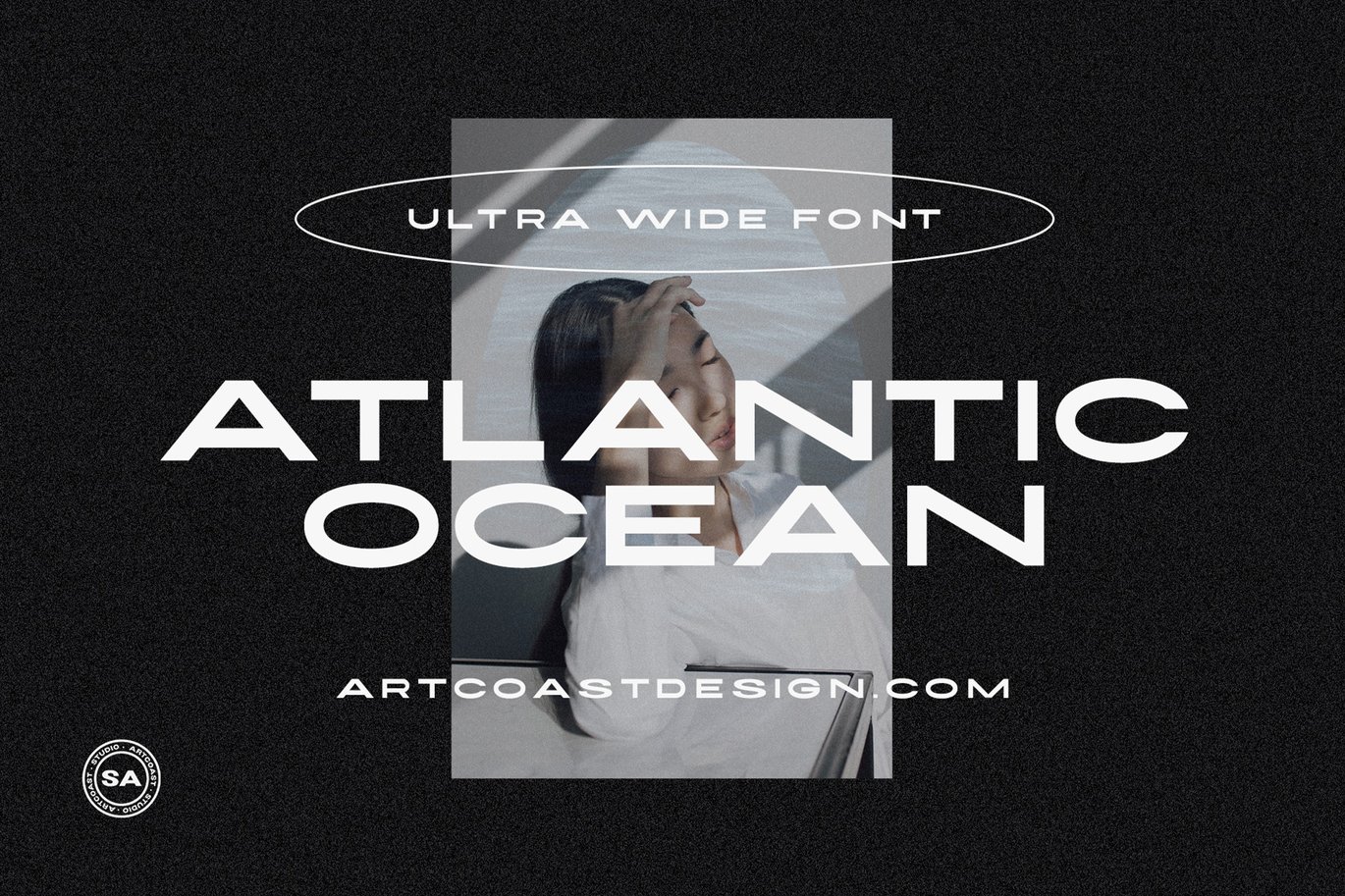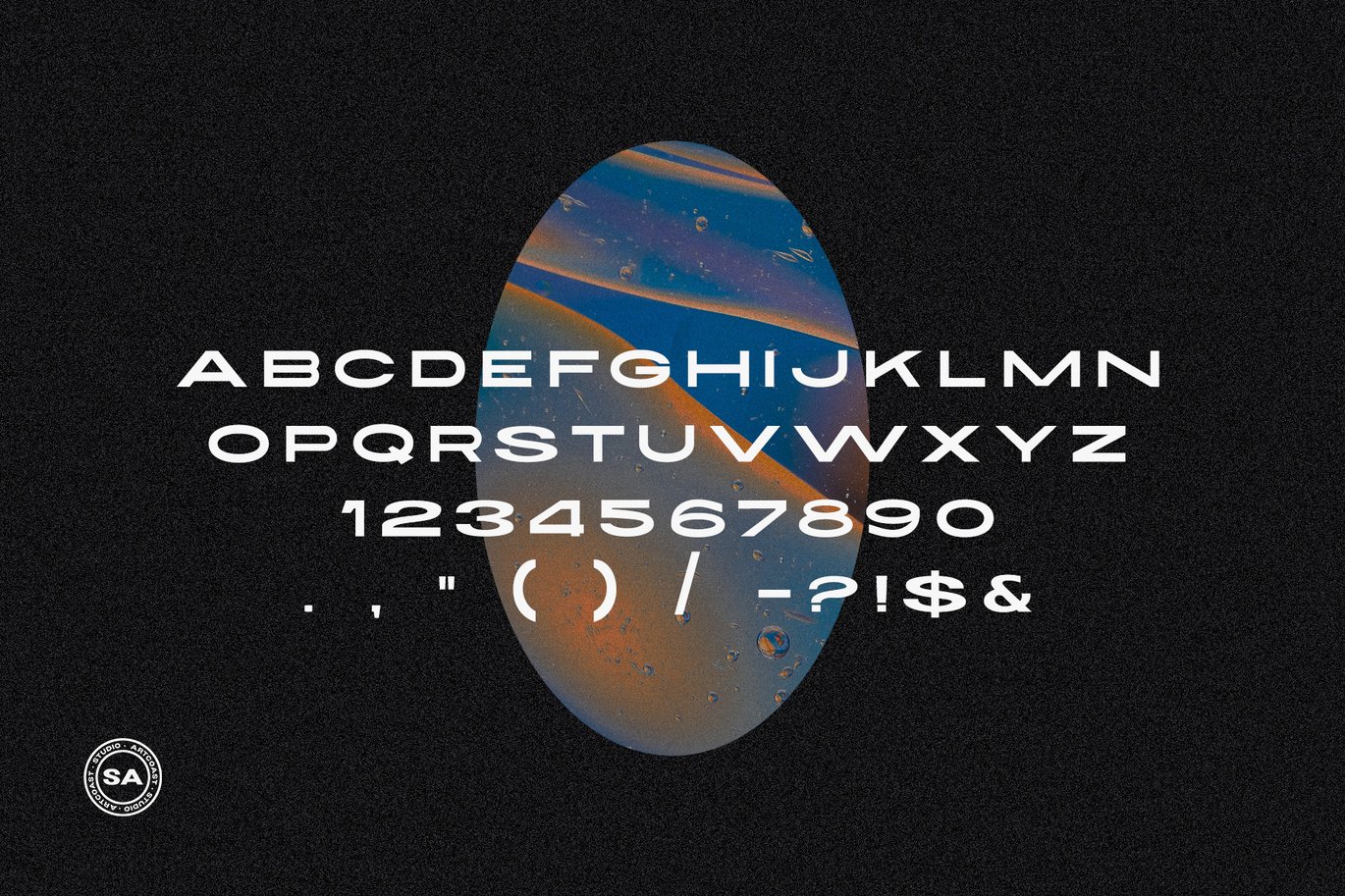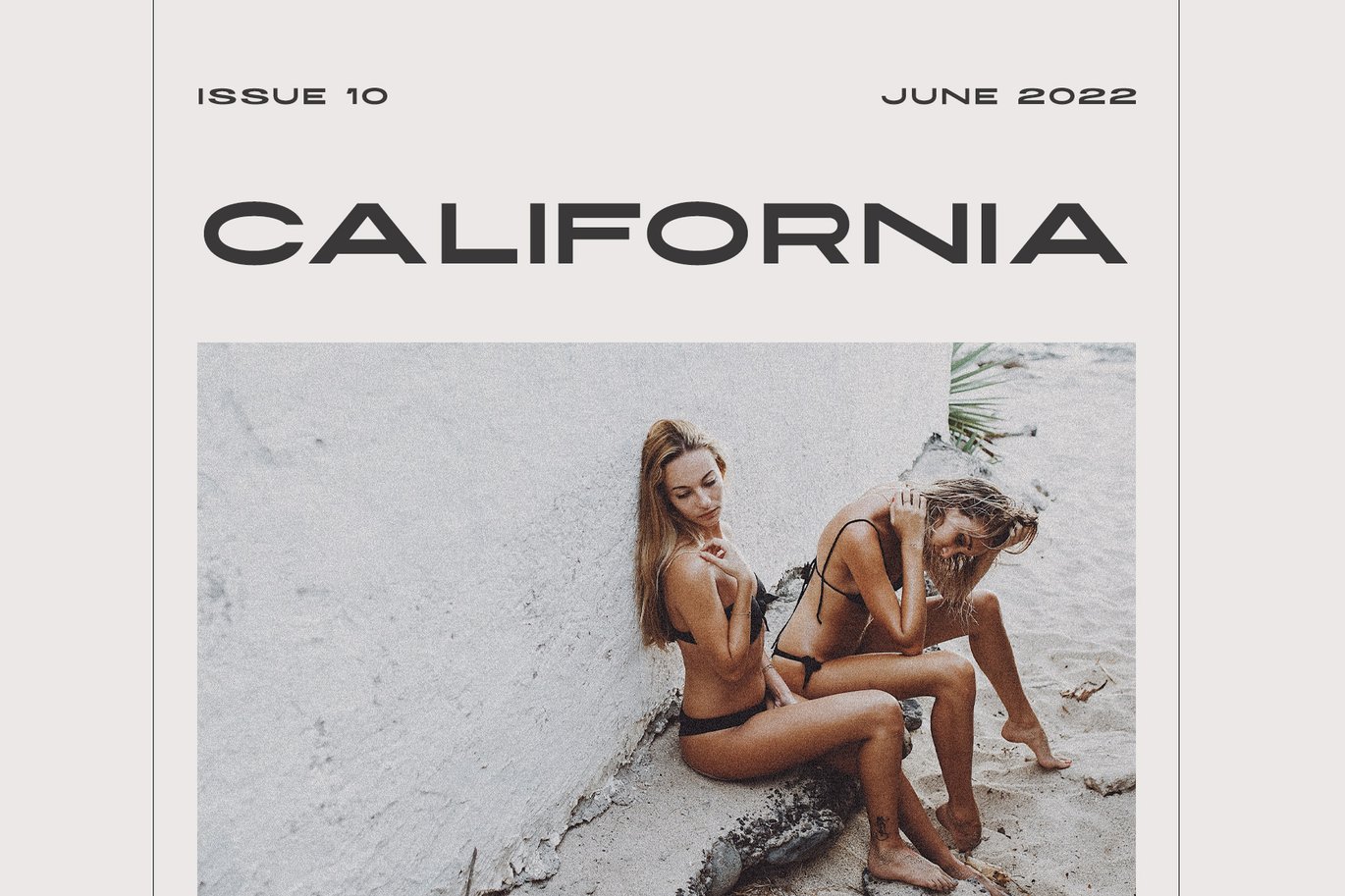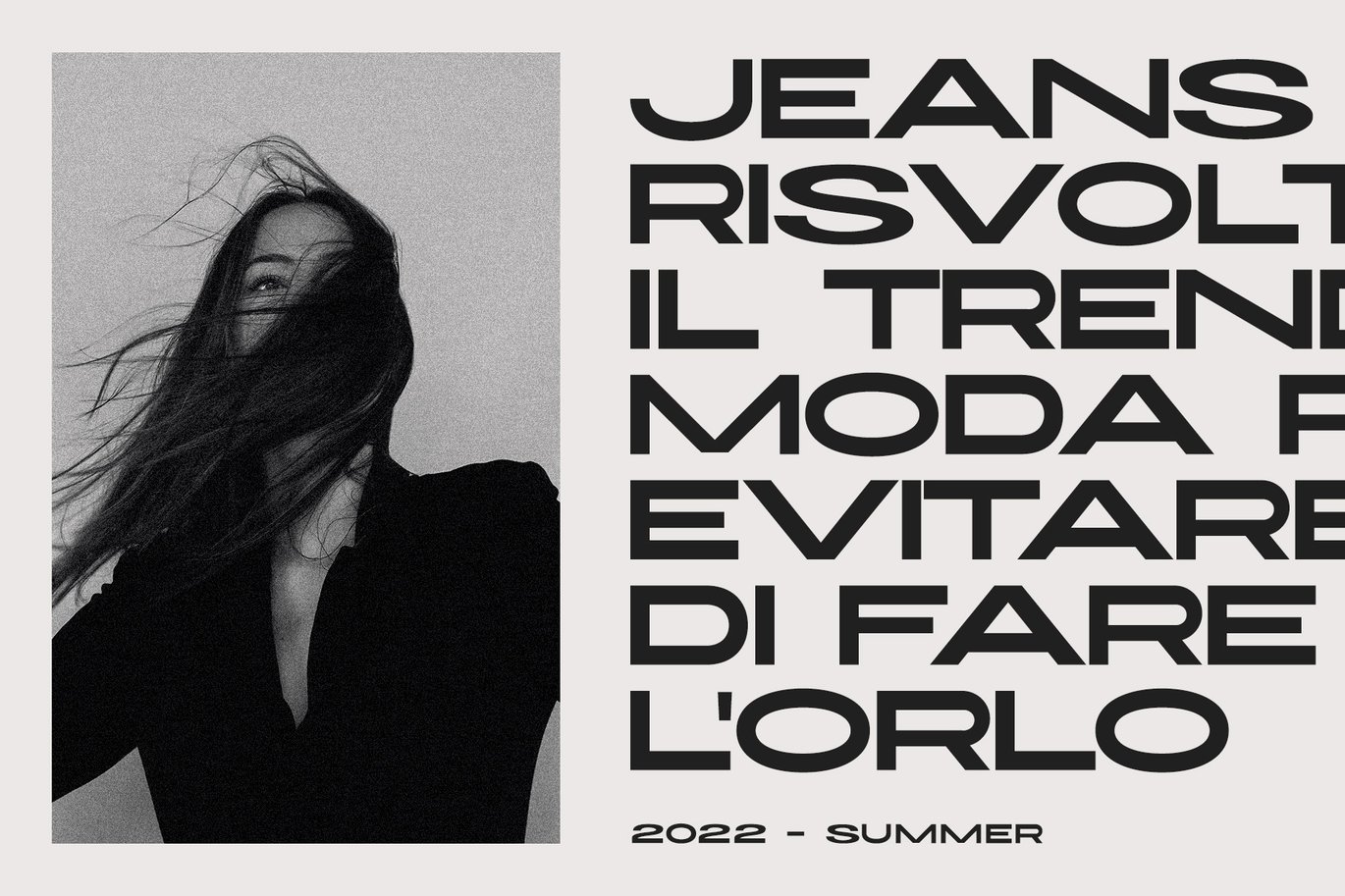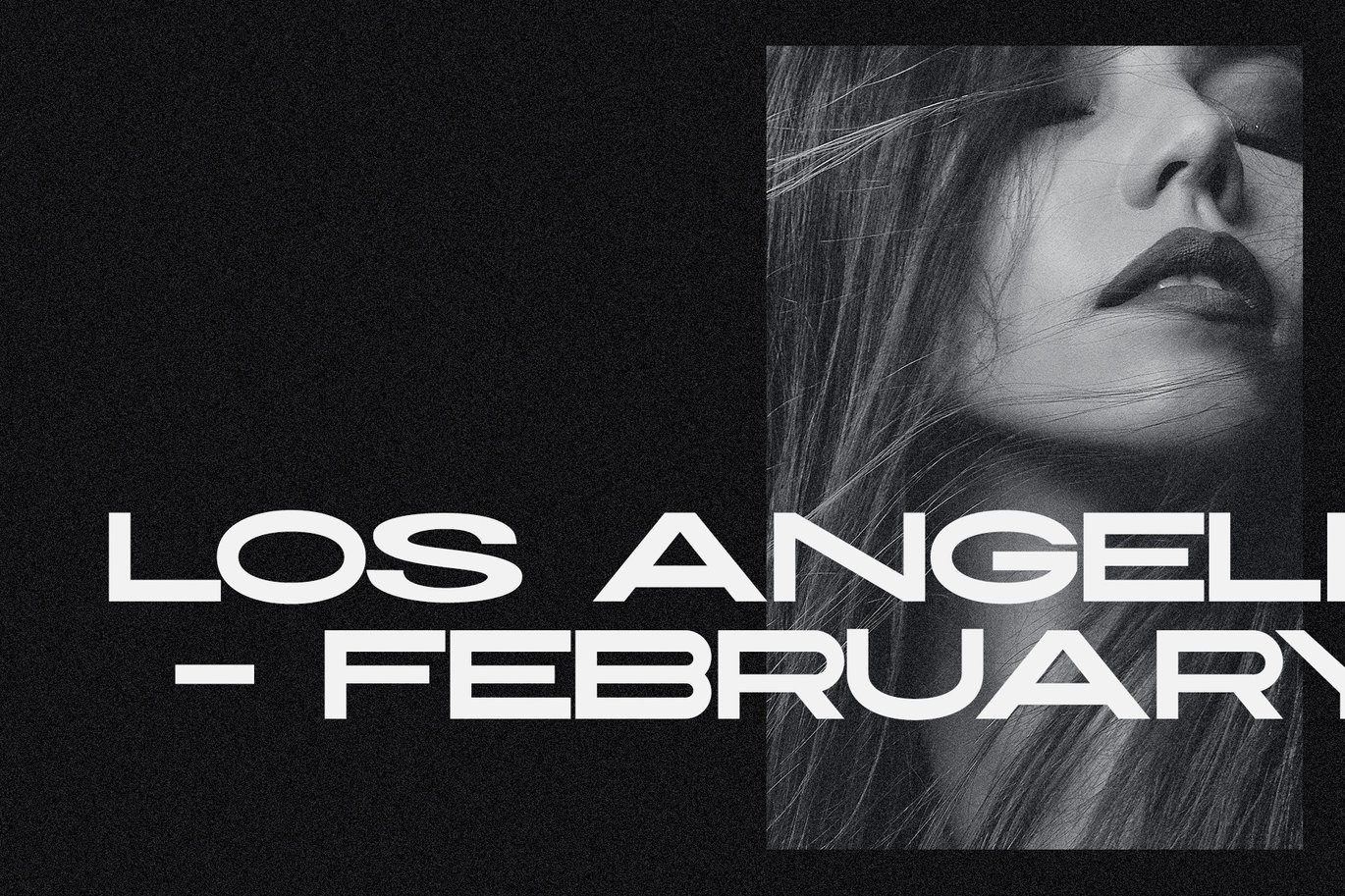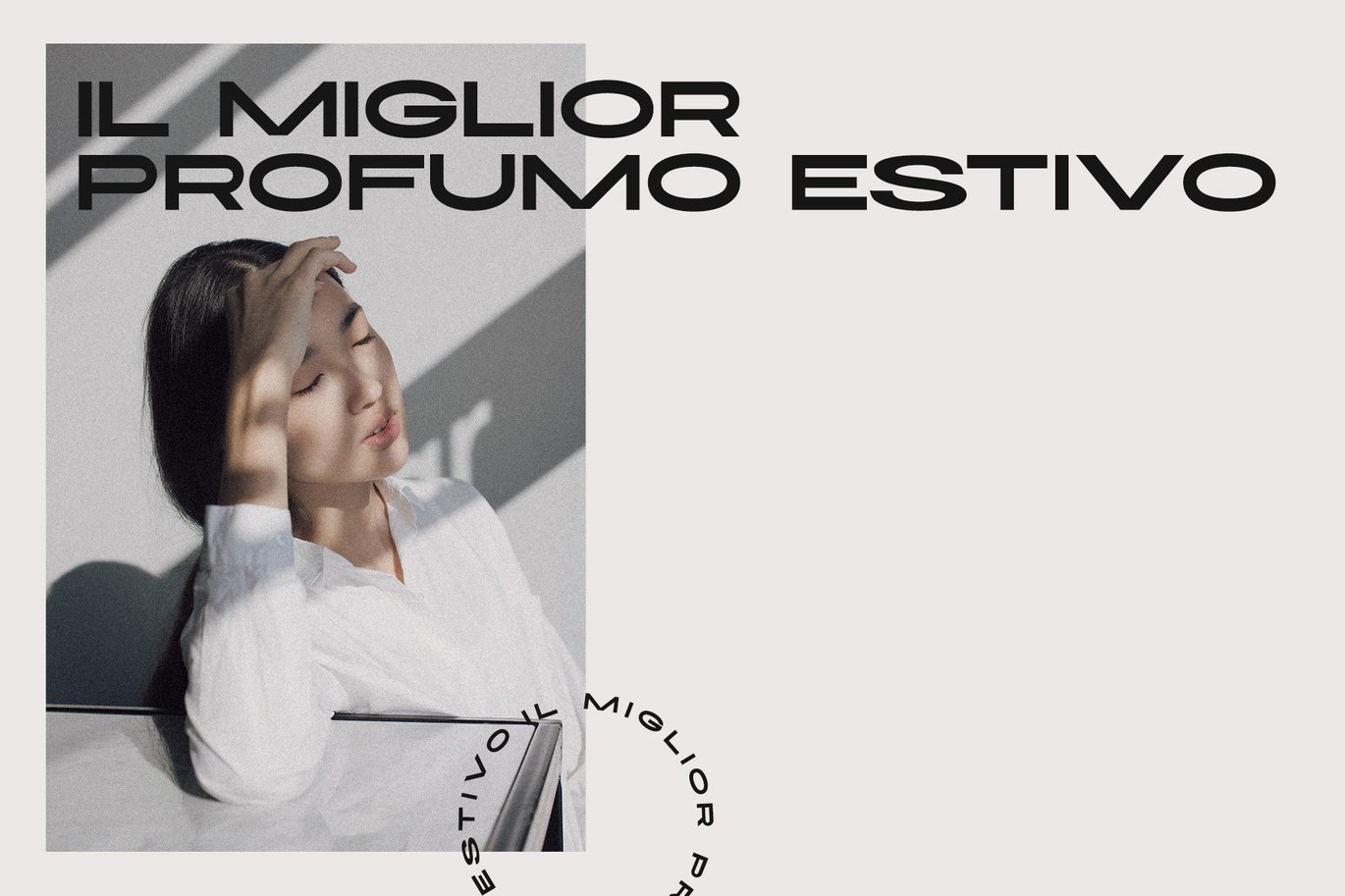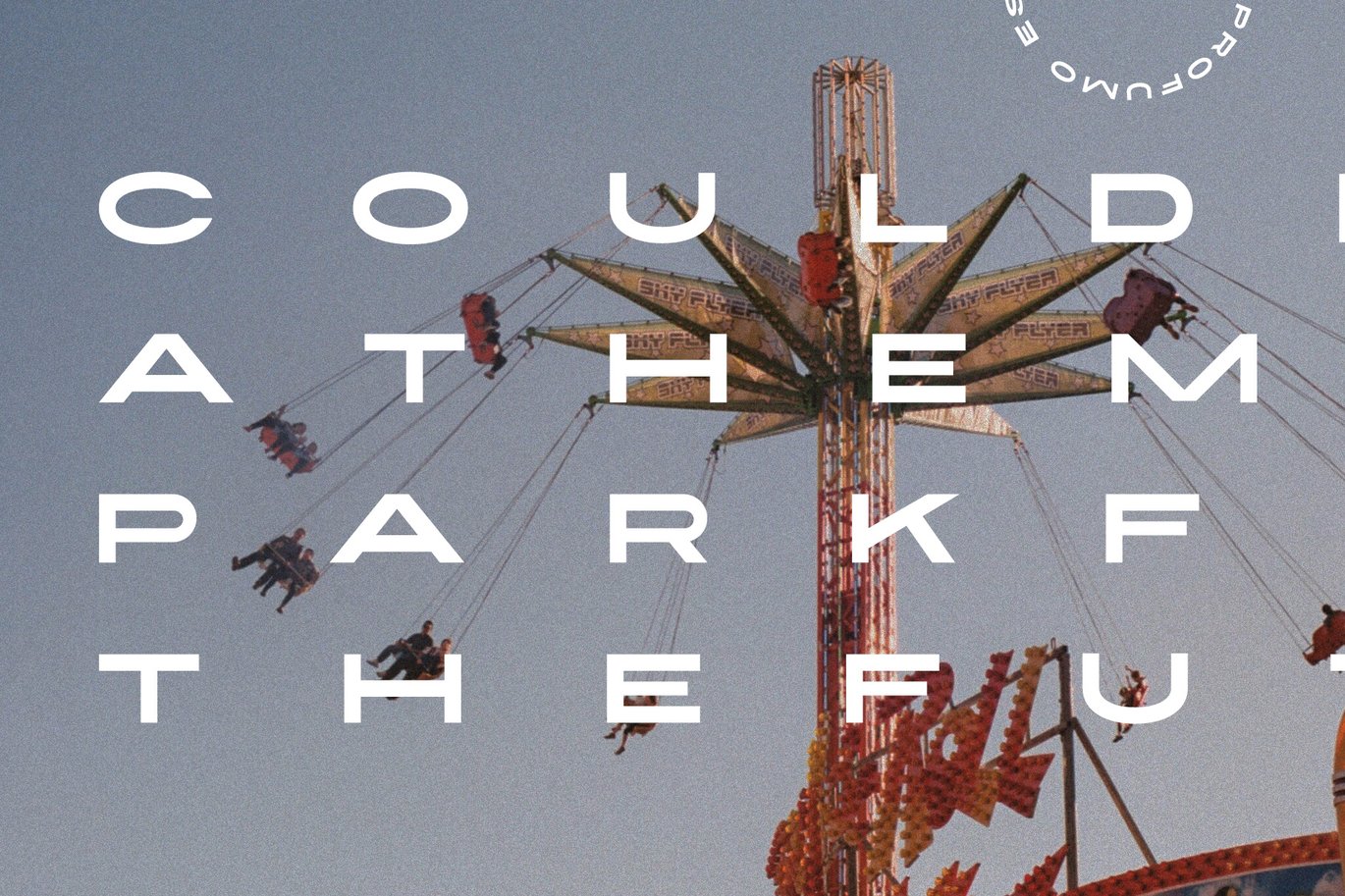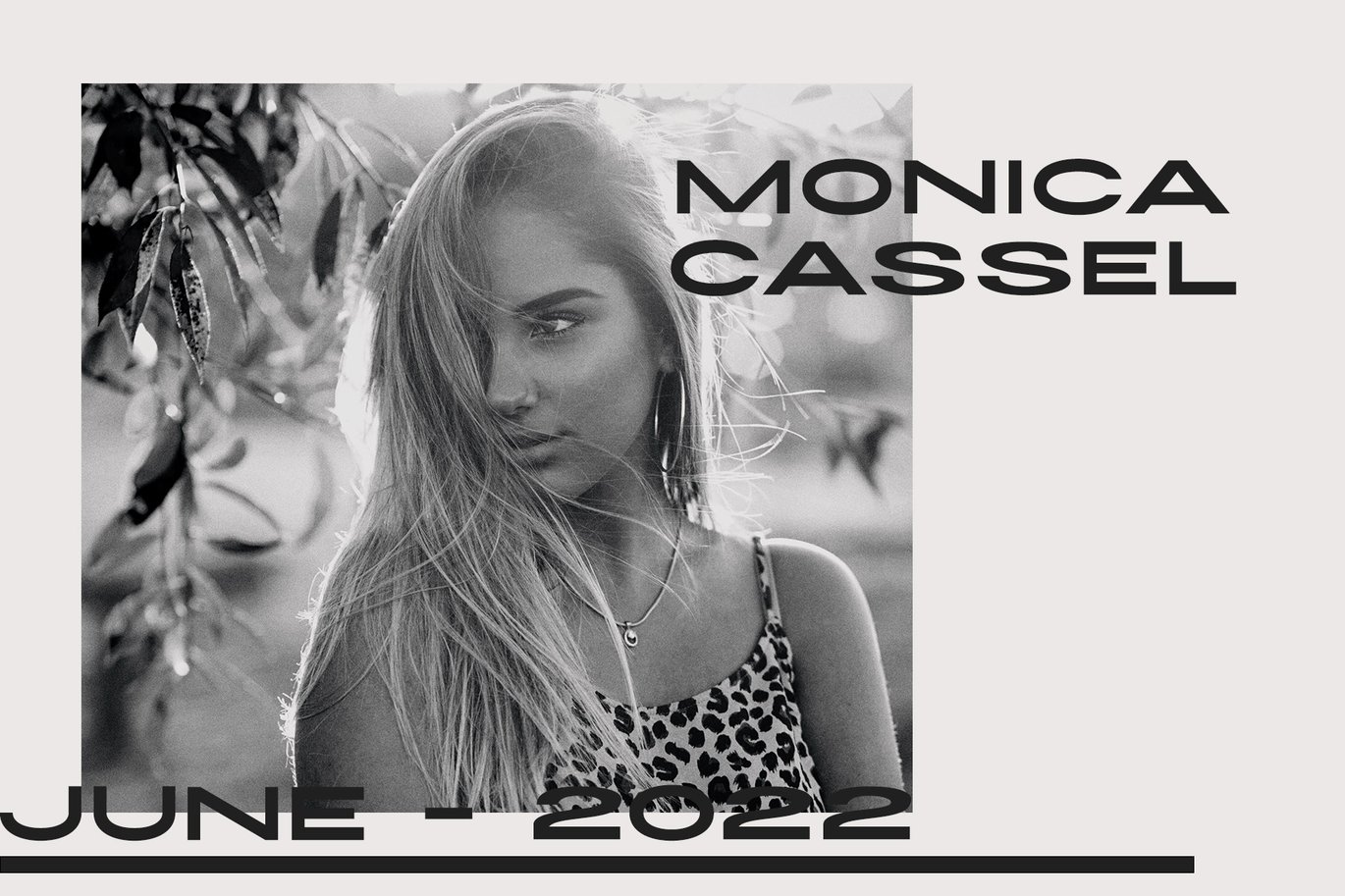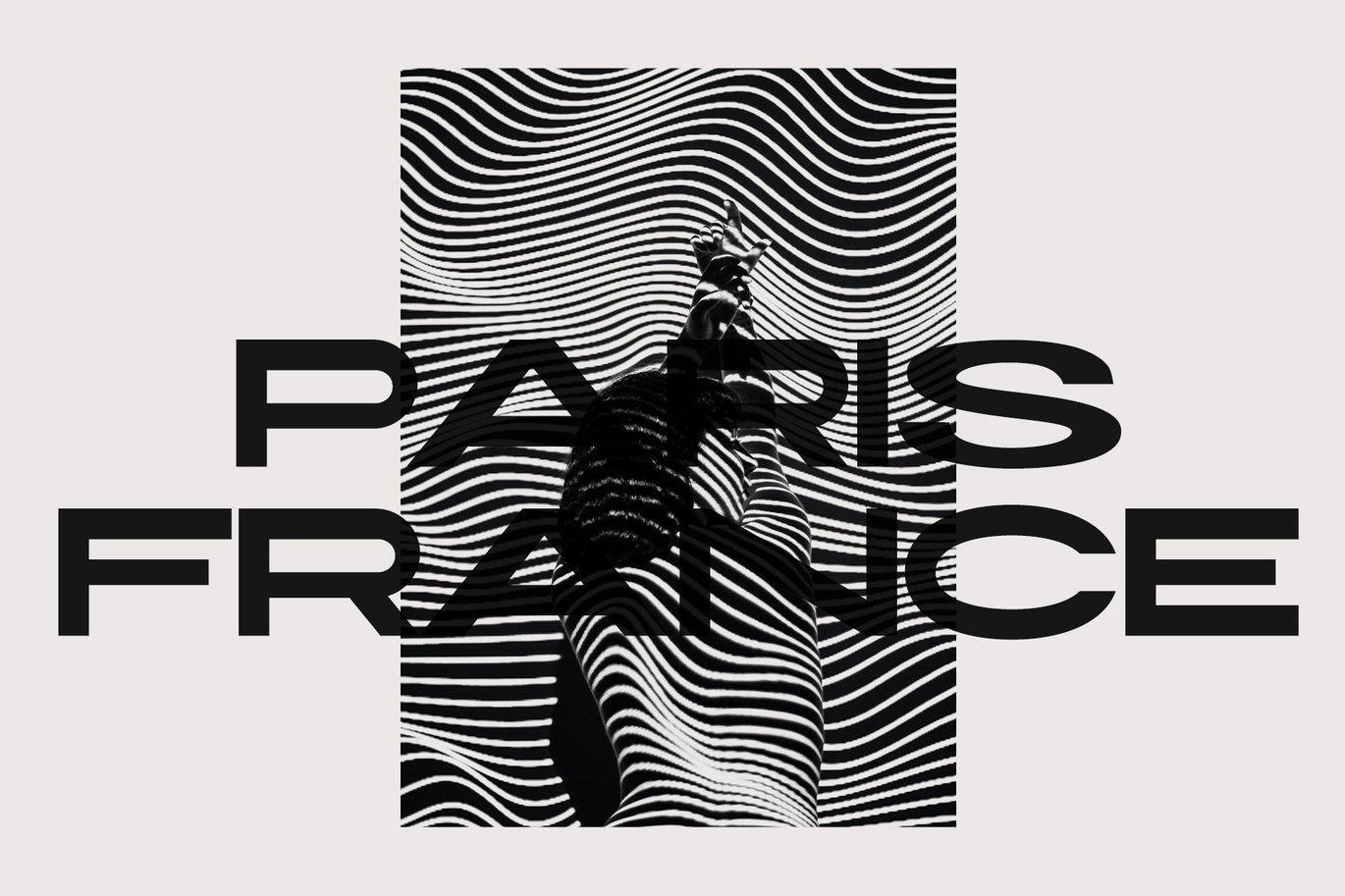
Atlantic Ocean | Ultra Wide Font
“SA Atlantic Ocean” is a new classic casual sans serif wide font. “SA Atlantic Ocean” will perfect for many project: fashion, magazines, logo, branding, photography, invitations, wedding invitation, quotes, blog header, poster, advertisements, postcard, book, websites, etc.
- all caps letters
- numbers
- punctuation